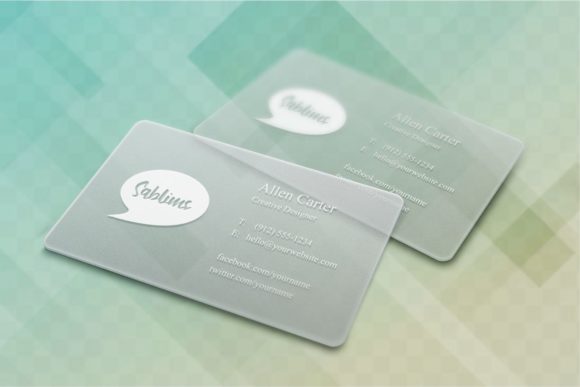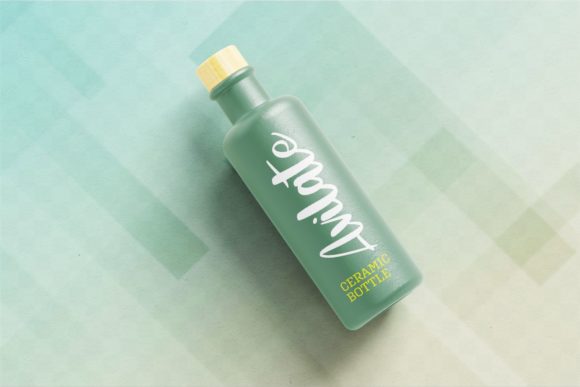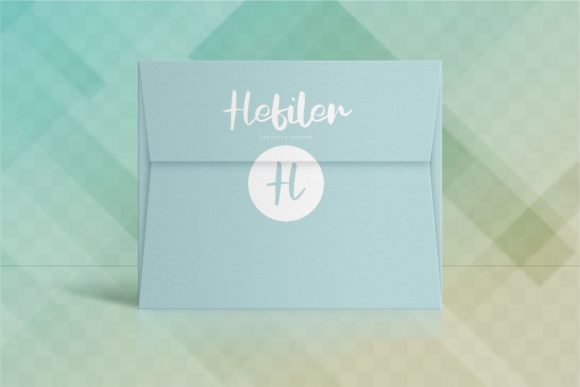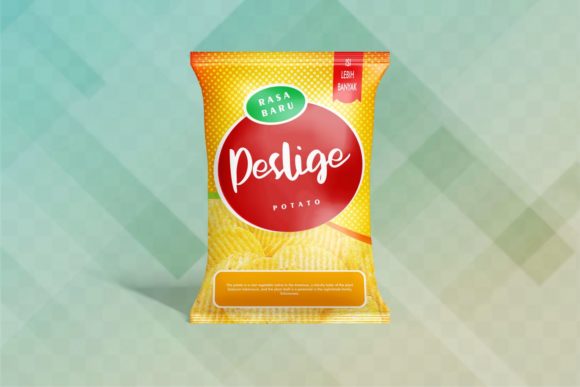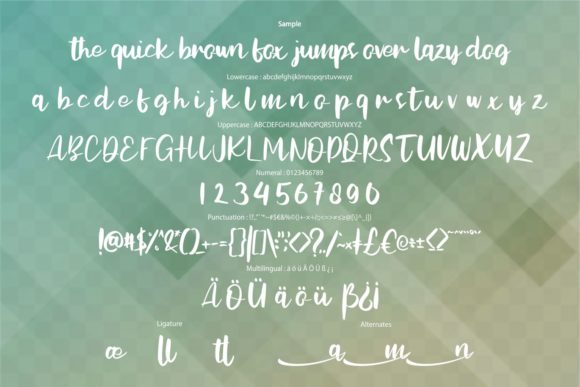
Introduction to Festica Font
Festica is an adorable quirky handwritten font.
It will add an incredibly joyful touch to your designs Fall in love with its playful style and use it to create beautiful stationary art, eye-catching social media posts, and much more.
Key Features of Festica Font